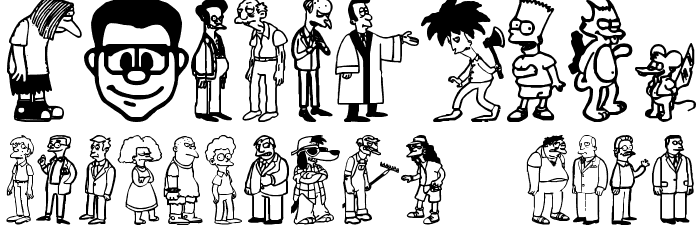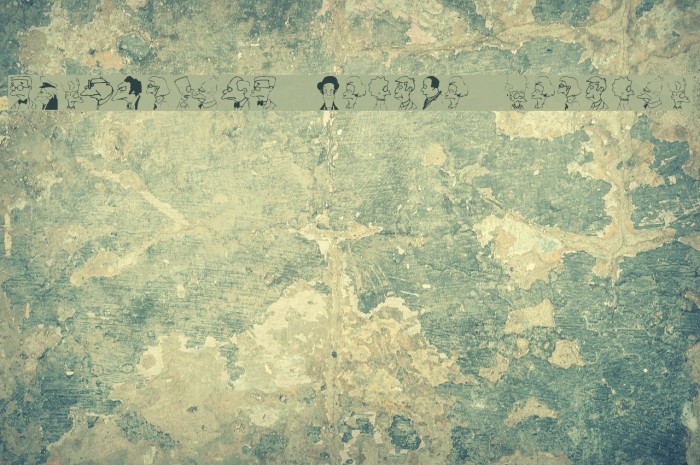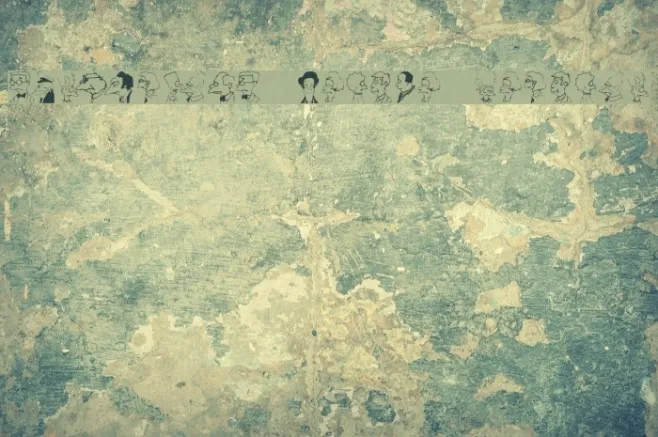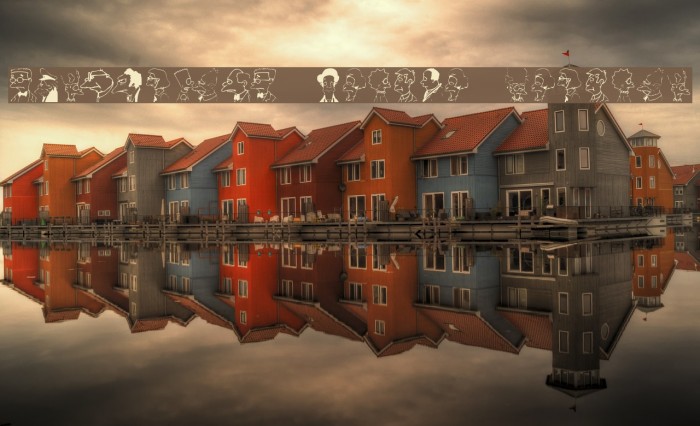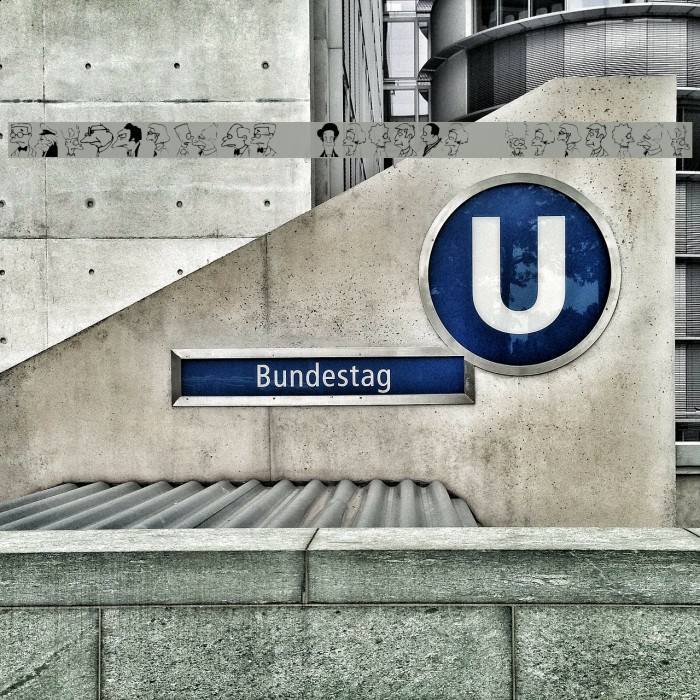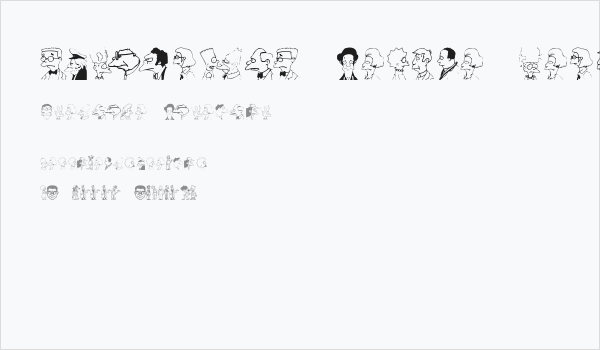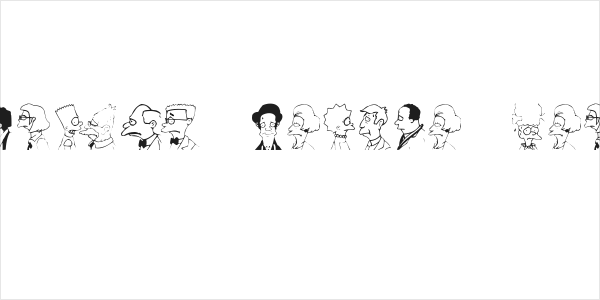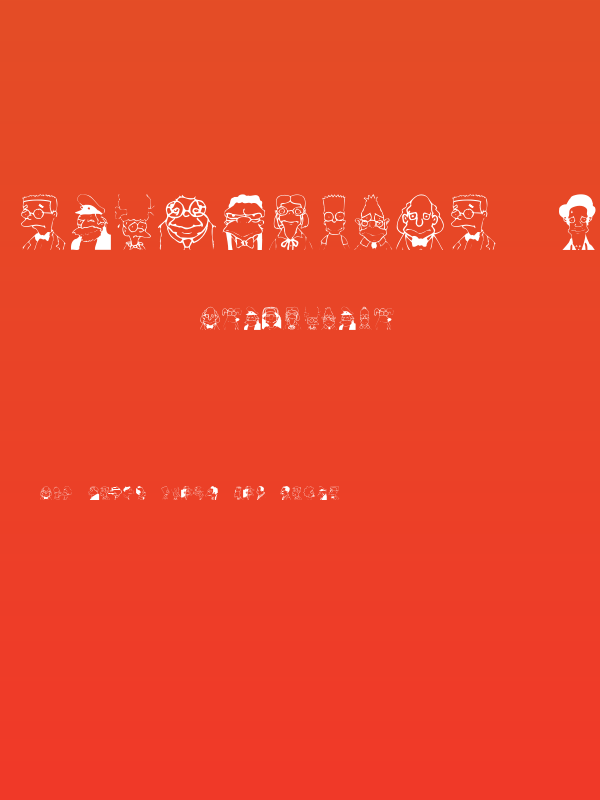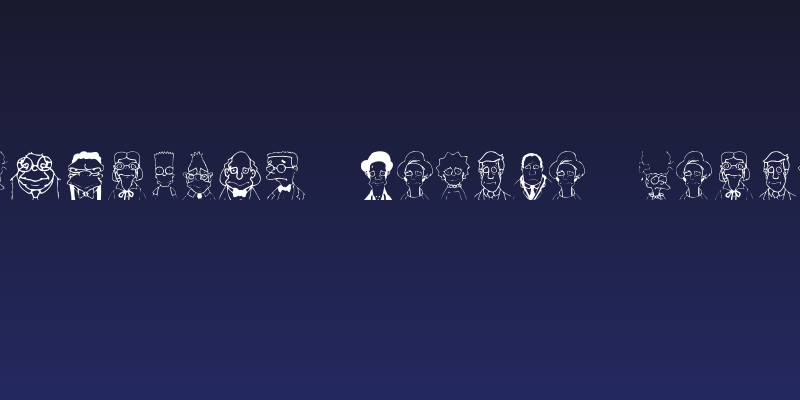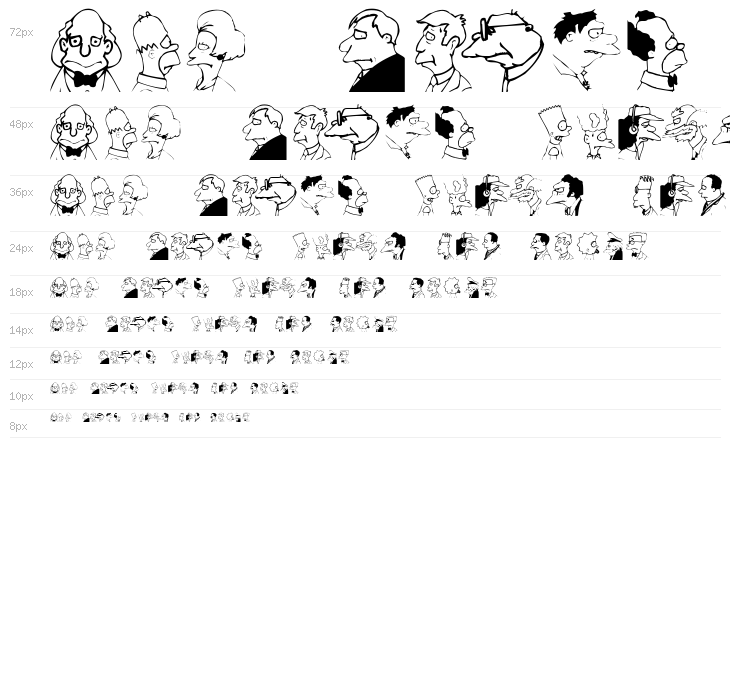
Springbats Deluxe Regular Font
Springbats Deluxe Regular Description
A decorative dingbat font featuring hand-drawn cartoon character illustrations, each glyph representing a unique caricature or figure in a playful, comic style. The characters are outlined in black with varying levels of detail and expression, evoking a whimsical and humorous tone.
| Overall Style | Decorative, Playful, Comic |
| Use Case | Illustrative elements, icons, novelty graphics, not for text setting. |
| Proposed Projects | ChildrenΓ’β¬β’s books, comic strips, playful posters, novelty invitations, themed party materials, character-based branding. |